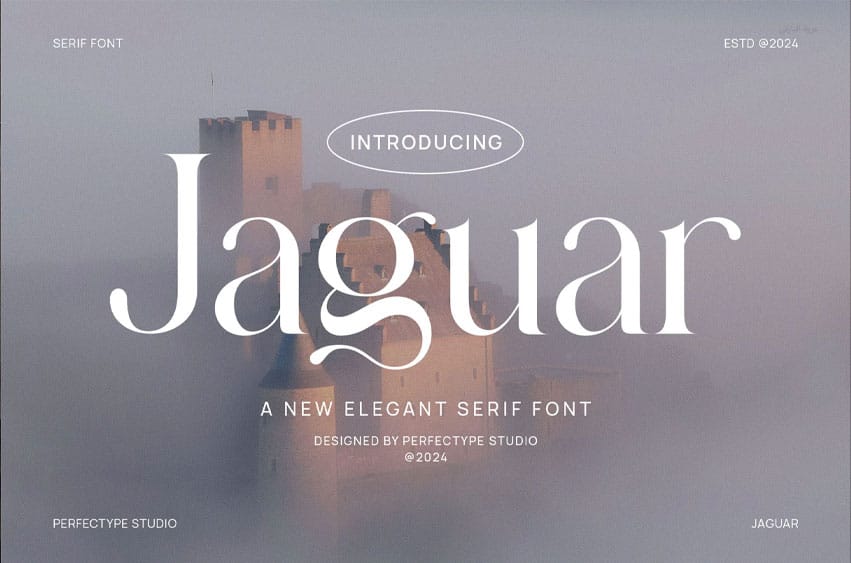
Jaguar Font Elegant Serif is a sophisticated and contemporary typeface designed to bring a touch of refinement to any project. With its graceful curves, stylish ligatures, and unique alternate characters, this font exudes elegance while maintaining a strong, modern presence. Whether used for high-end branding, luxury packaging, or editorial layouts, Jaguar stands out with its exquisite details and balanced proportions.
Perfectly suited for fashion, beauty, and lifestyle brands, Jaguar Elegant Serif adds a sense of exclusivity and charm to logos, product packaging, and magazine spreads. Its high-contrast strokes and delicate serifs create a captivating visual rhythm, making it ideal for both headlines and body text. The thoughtfully crafted letterforms ensure readability while adding a distinctive personality to your design.
This font is a must-have for designers looking to create a refined and polished aesthetic. Whether for boutique branding, wedding invitations, website headers, or luxury advertisements, Jaguar Elegant Serif enhances every project with a timeless, high-fashion appeal. Its versatility allows it to shine in both minimalist and ornate compositions, making it a valuable addition to any font collection.
Elevate your creative work with the sophistication of Jaguar Elegant Serif – a perfect fusion of modern elegance and timeless beauty.